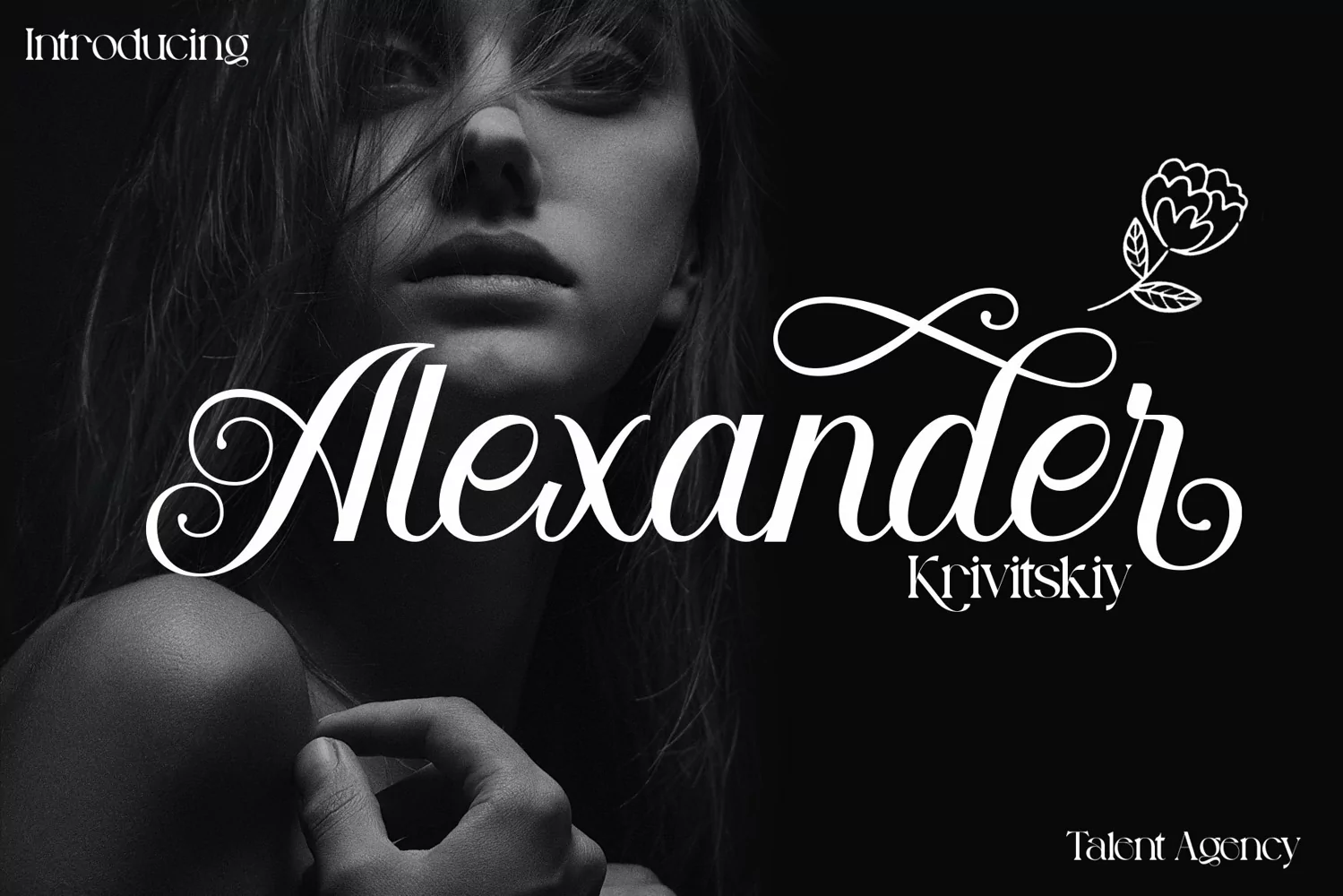
Allysondust
**Allysondust Font**
This pair was inspired by beautiful invitation card design that i saw on some place, It was crafted by hand specially to add natural handmade feeling in its brand identity than i make it clean with pentool.
Allysondust Font is very good looking in logo, labels, product packaging, invitations, advertising and others.